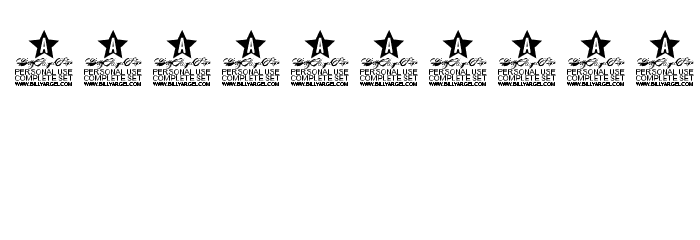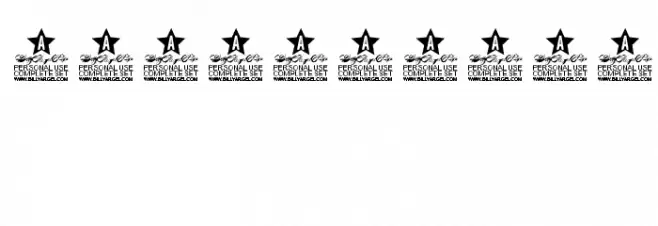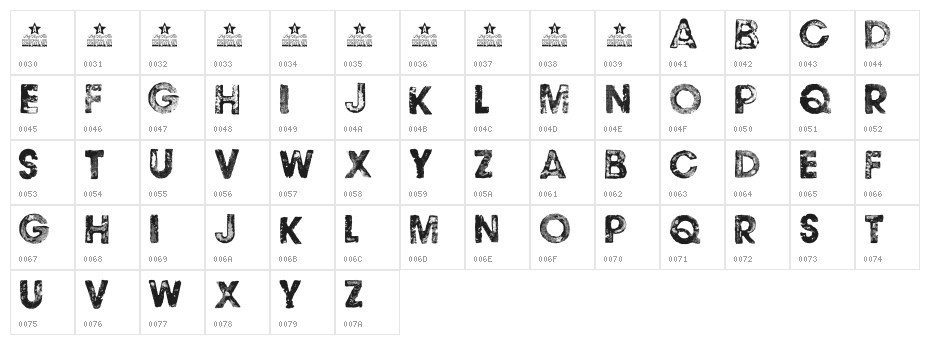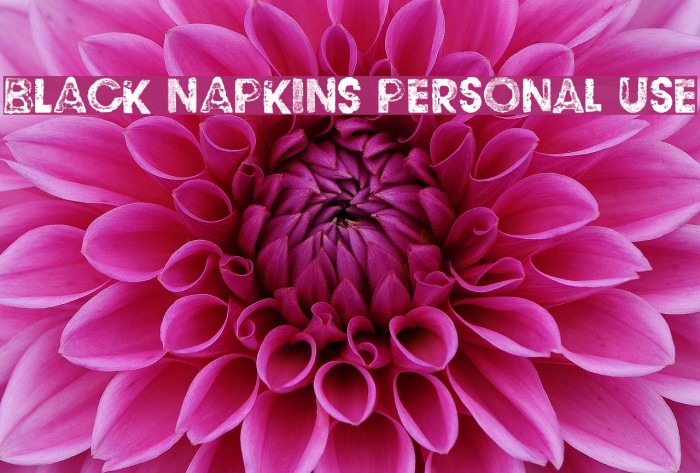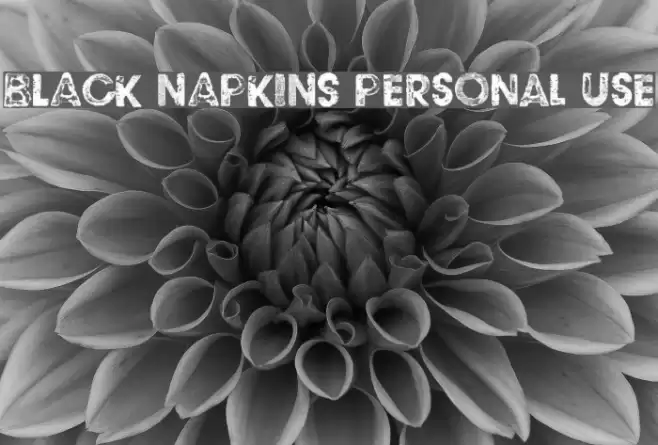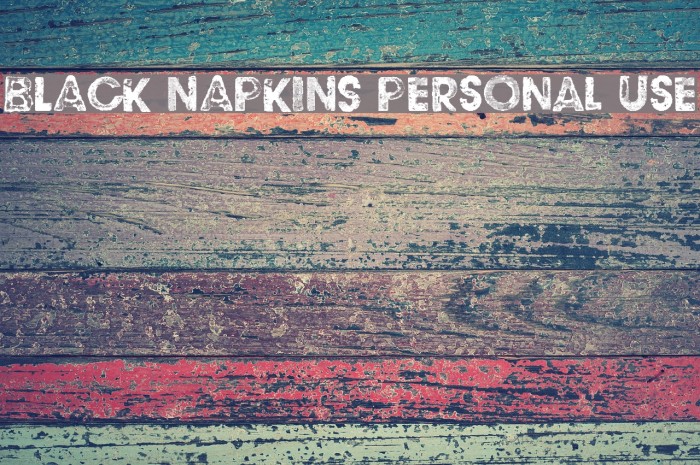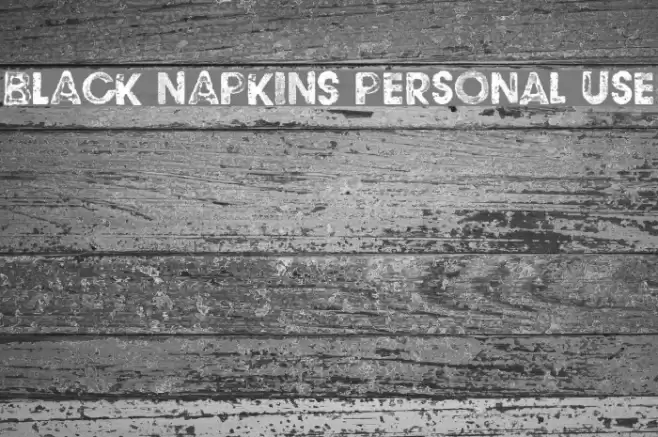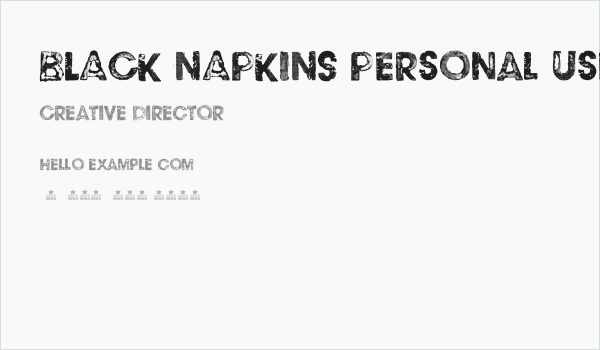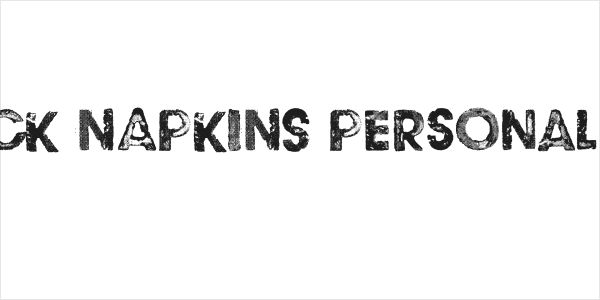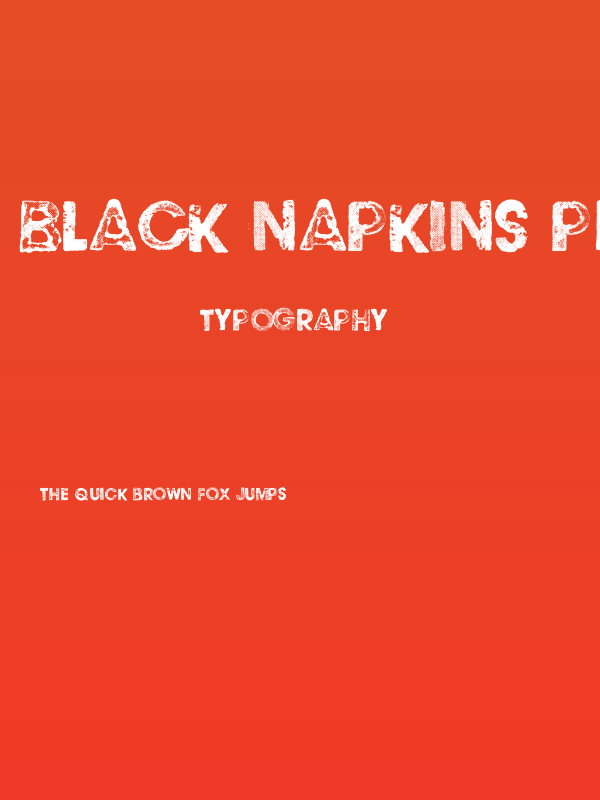
BLACK NAPKINS Personal Use Font
BLACK NAPKINS Personal Use Description
This font features a distressed, grunge style with a textured appearance that gives it a rugged and worn look. The uppercase letters are bold and impactful, with each character exhibiting a unique pattern of distressing that adds to the overall aesthetic. The font has a strong presence, making it suitable for designs that require a bold statement. The irregularities in the texture create a sense of movement and dynamism, making it ideal for creative projects that aim to capture attention. The font's style is reminiscent of vintage or industrial themes, with a modern twist that makes it versatile for various design applications.
| Overall Style | Vintage, Grunge |
| Proposed Projects | Ideal for posters, album covers, branding, and any project requiring a bold, edgy look. |